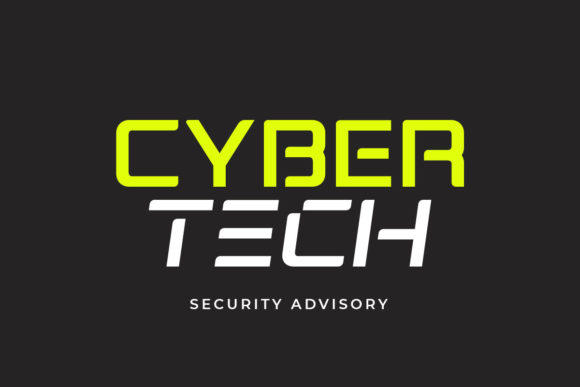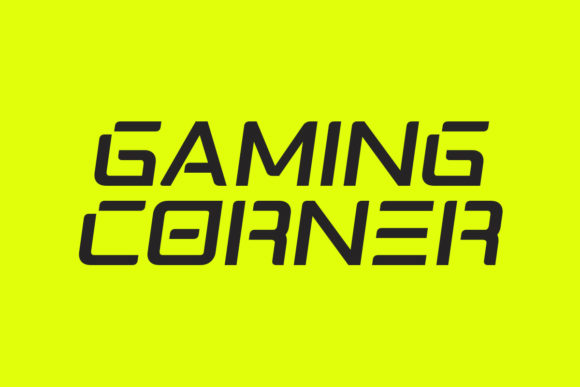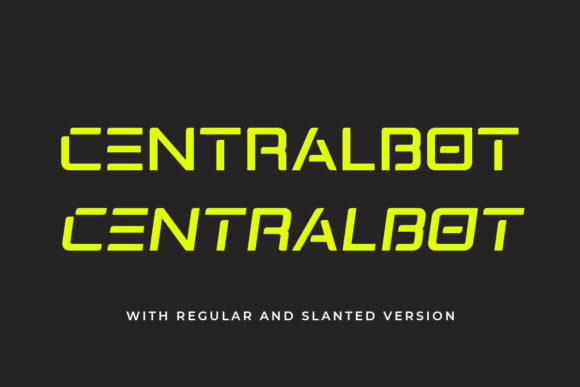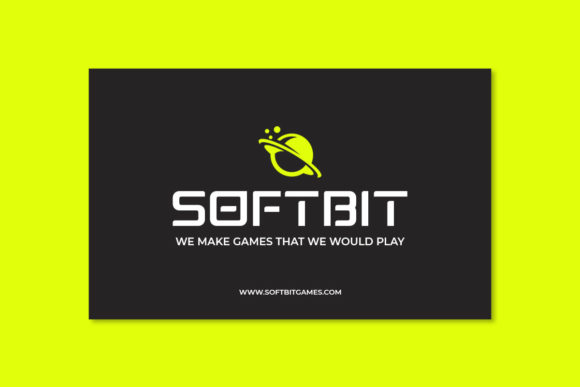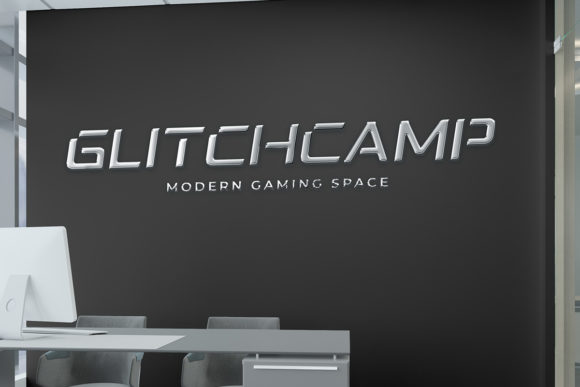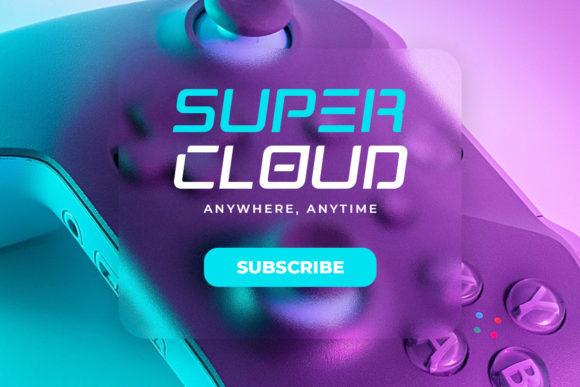
Gremio Font: Elevate Your Modern Logo Design with Ease
In the realm of logo design, fonts play a pivotal role in conveying a brand’s identity and aesthetic. For designers and crafters seeking a modern sans serif font that embodies simplicity and versatility, Gremio Font stands out as an exceptional choice. This comprehensive guide delves into the features, benefits, and creative applications of Gremio Font, empowering you to craft stunning modern logos with ease.
What is Gremio Font?
Gremio Font is a contemporary sans serif typeface meticulously designed to cater to the demands of modern logo design. Its clean lines, geometric shapes, and highly legible characters make it an ideal selection for designers aiming to create sleek, professional logos. The font’s modern aesthetic ensures that your brand stands out in a crowded marketplace, exuding a sense of sophistication and elegance.
Key Features of Gremio Font
- Modern Sans Serif Design: Gremio Font boasts a sleek, sans serif design that lends itself perfectly to modern logos. Its minimalist approach ensures that your brand’s message is conveyed clearly and effectively.
- Mix and Match Characters: One of the standout features of Gremio Font is its versatility. By simply mixing and matching characters, you can create a unique, modern logo look that aligns with your brand’s vision.
- High Legibility: The font’s characters are designed for high legibility, ensuring that your logo is easily recognizable across various mediums, from digital platforms to print materials.
- Instant Logo Creation: With Gremio Font, creating a modern logo has never been easier. The font’s design allows for instant logo creation, saving you time and effort in the design process.
Benefits of Using Gremio Font
Choosing Gremio Font for your logo design needs comes with a multitude of benefits. Here are a few:
- Time Efficiency: The font’s versatility and ease of use significantly reduce the time spent on logo design, allowing you to focus on other aspects of your project.
- Cost-Effective: By enabling instant logo creation, Gremio Font offers a cost-effective solution for businesses and individuals looking to establish a strong brand presence.
- Customization: Despite its instant creation capability, Gremio Font offers ample room for customization. Experiment with different character combinations to create a logo that perfectly represents your brand.
Creative Applications of Gremio Font
Gremio Font’s adaptability makes it suitable for a wide range of design applications. Here are some creative ways to utilize this versatile font:
- Logo Design: The most obvious application, Gremio Font is perfect for creating modern, minimalist logos that make a lasting impression.
- Branding Materials: From business cards to letterheads, Gremio Font ensures consistency across all your branding materials, reinforcing your brand’s identity.
- Digital Graphics: Utilize Gremio Font in digital graphics such as social media assets, website headers, and email newsletters to maintain a cohesive brand image online.
- Packaging Design: For product-based businesses, Gremio Font can enhance packaging design, making it more visually appealing and aligned with your brand’s aesthetic.
Tips for Maximizing Gremio Font’s Potential
To get the most out of Gremio Font, consider the following tips:
- Experiment with Character Combinations: Don’t be afraid to try out different character mixes to create a unique logo that stands out.
- Adjust Size and Color: Play with the font size and color to ensure your logo looks great in various contexts.
- Pair with Other Fonts: For added creativity, experiment pairing Gremio Font with other fonts to create visually striking designs.
| Author | Rillatype |
Gremio Font emerges as a powerful tool for designers and crafters aiming to create modern, impactful logos. Its blend of simplicity, versatility, and legibility makes it an excellent choice for those looking to elevate their brand’s visual identity. By leveraging the features and benefits of Gremio Font, you can craft stunning logos that not only capture attention but also convey your brand’s essence effectively. Whether you’re a seasoned designer or a DIY enthusiast, Gremio Font is poised to become an indispensable asset in your design arsenal.